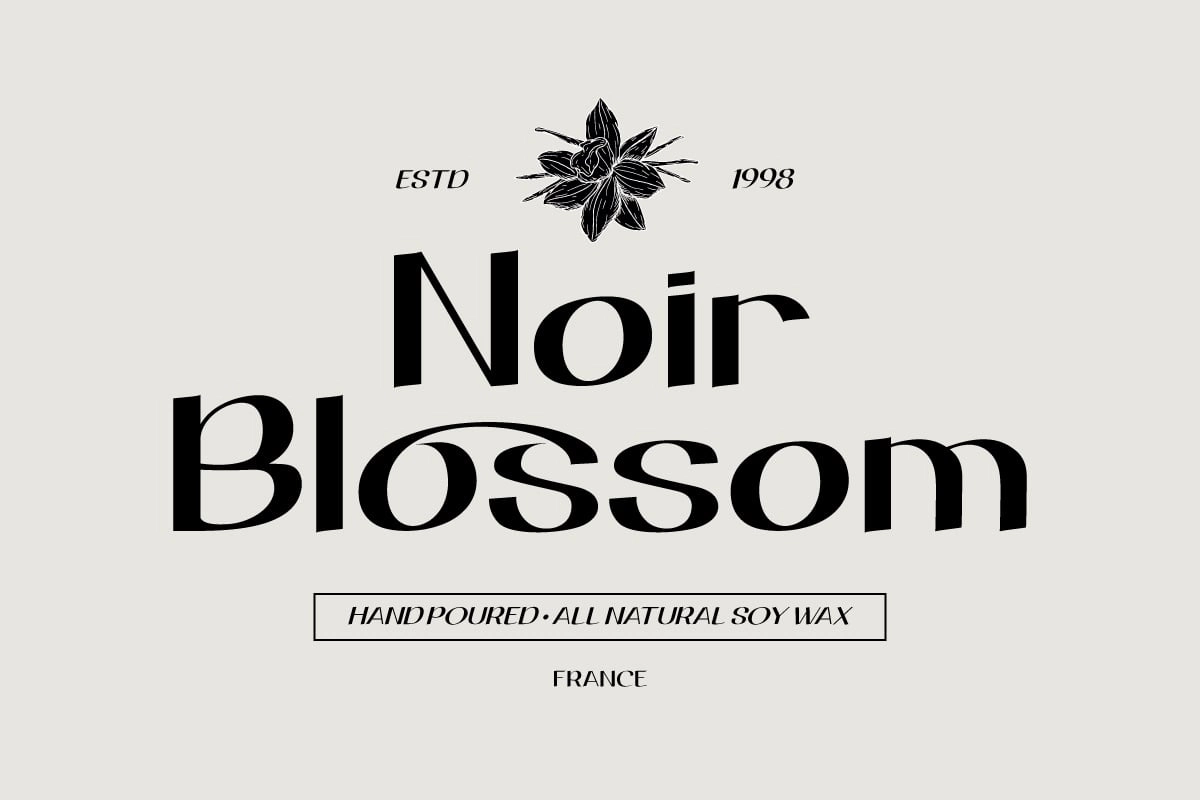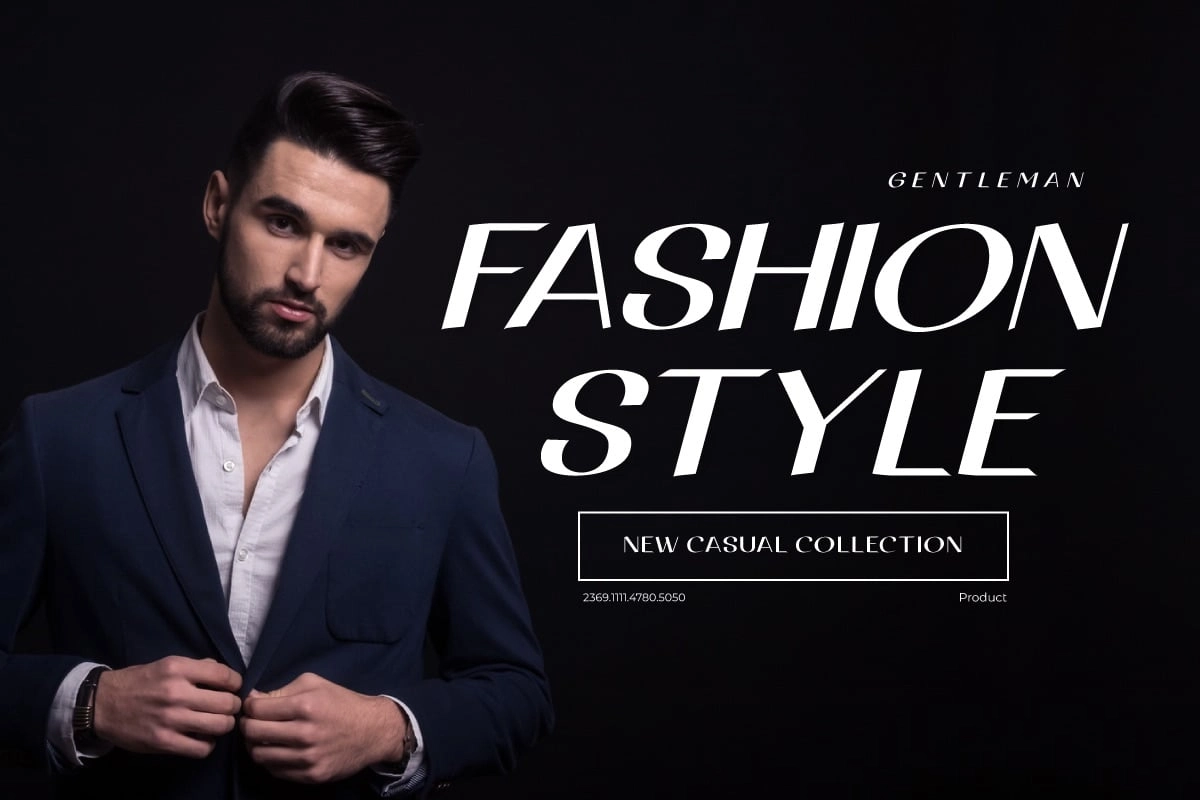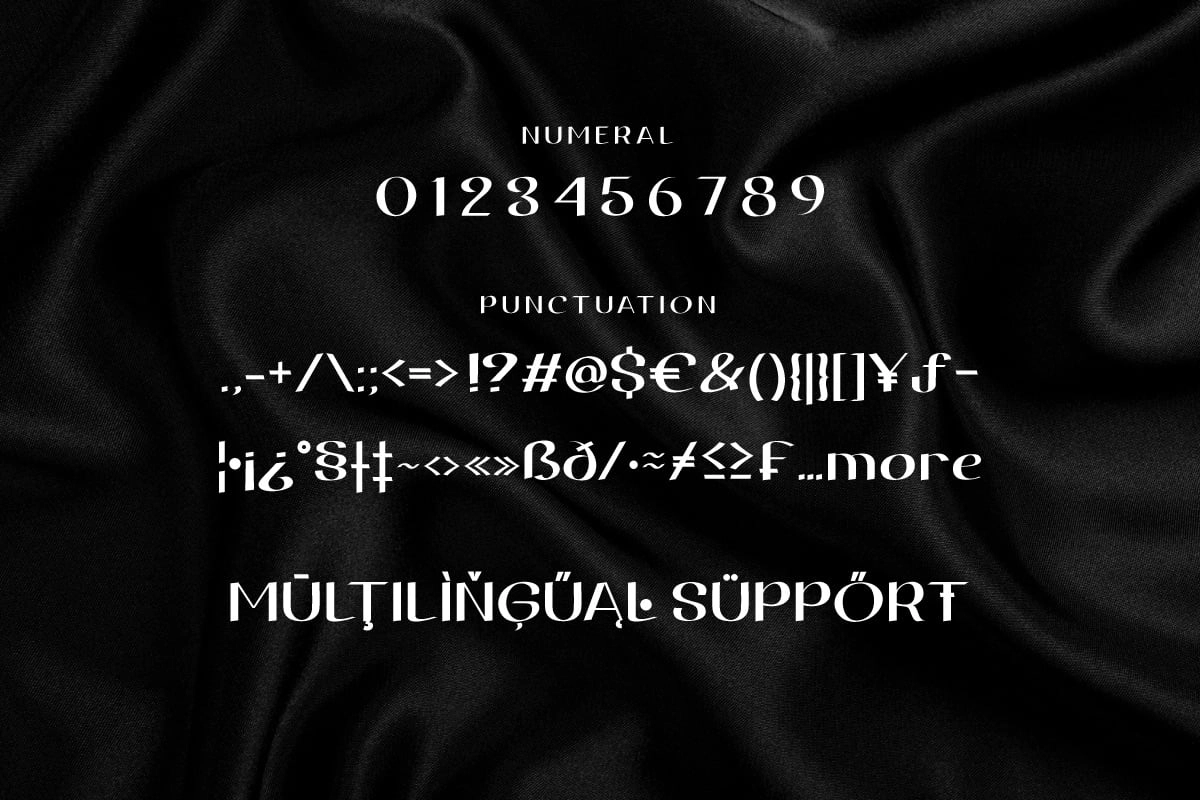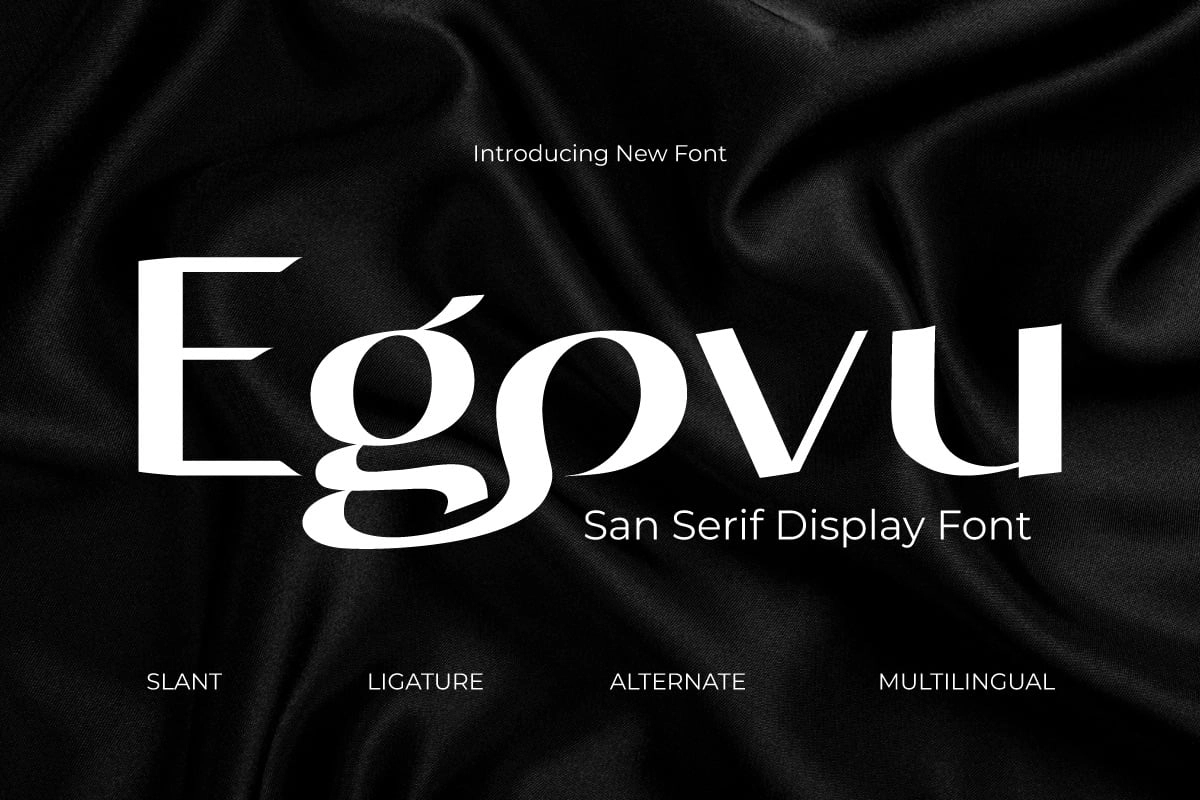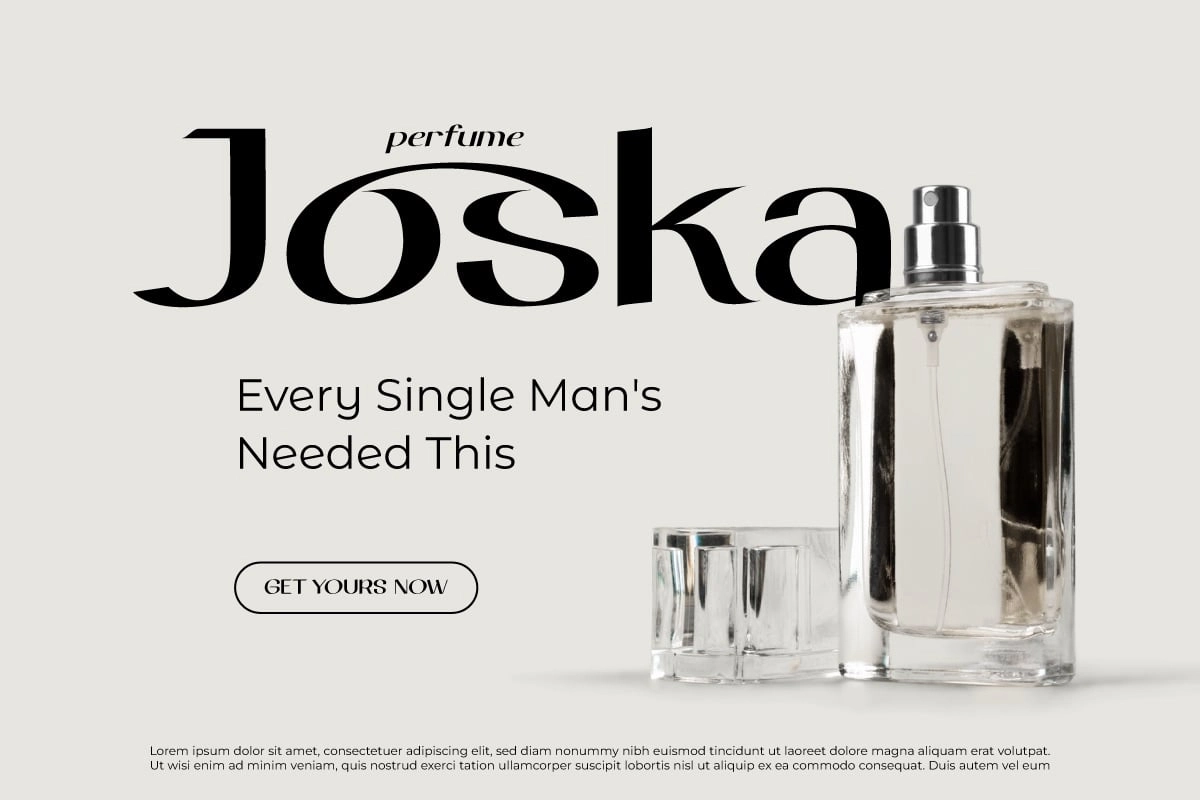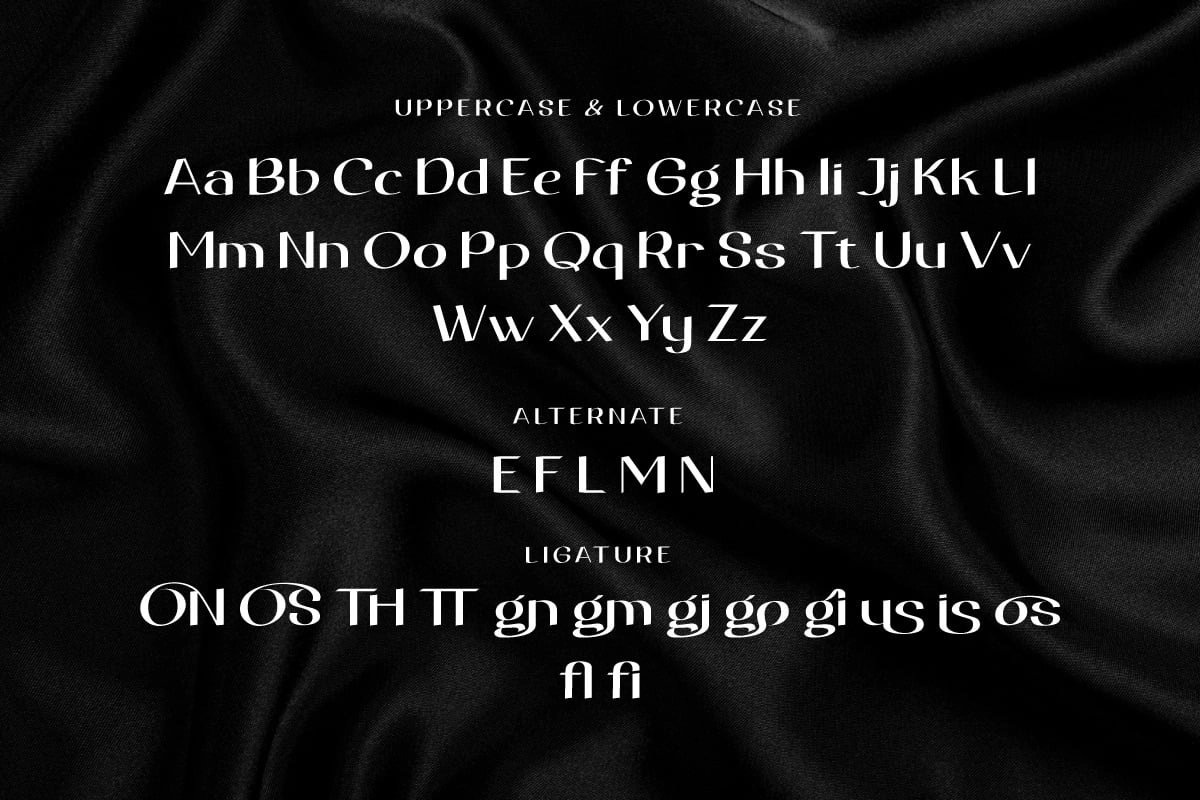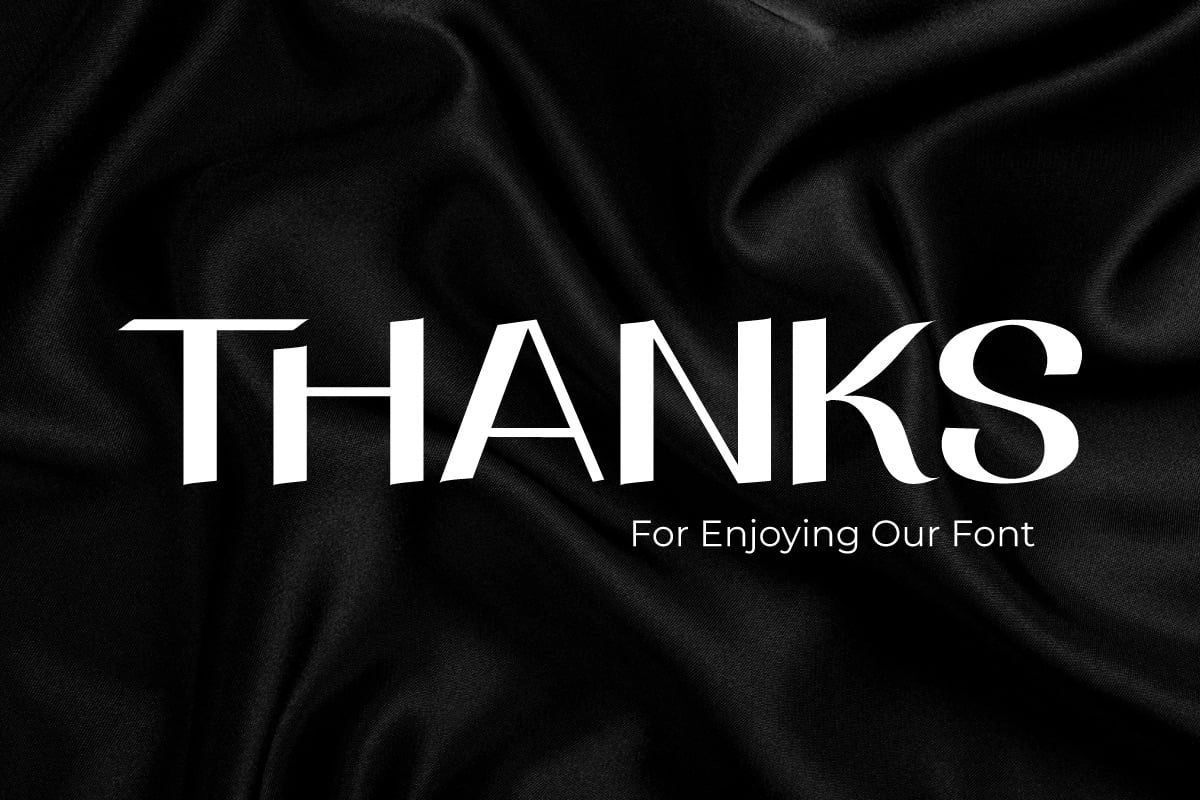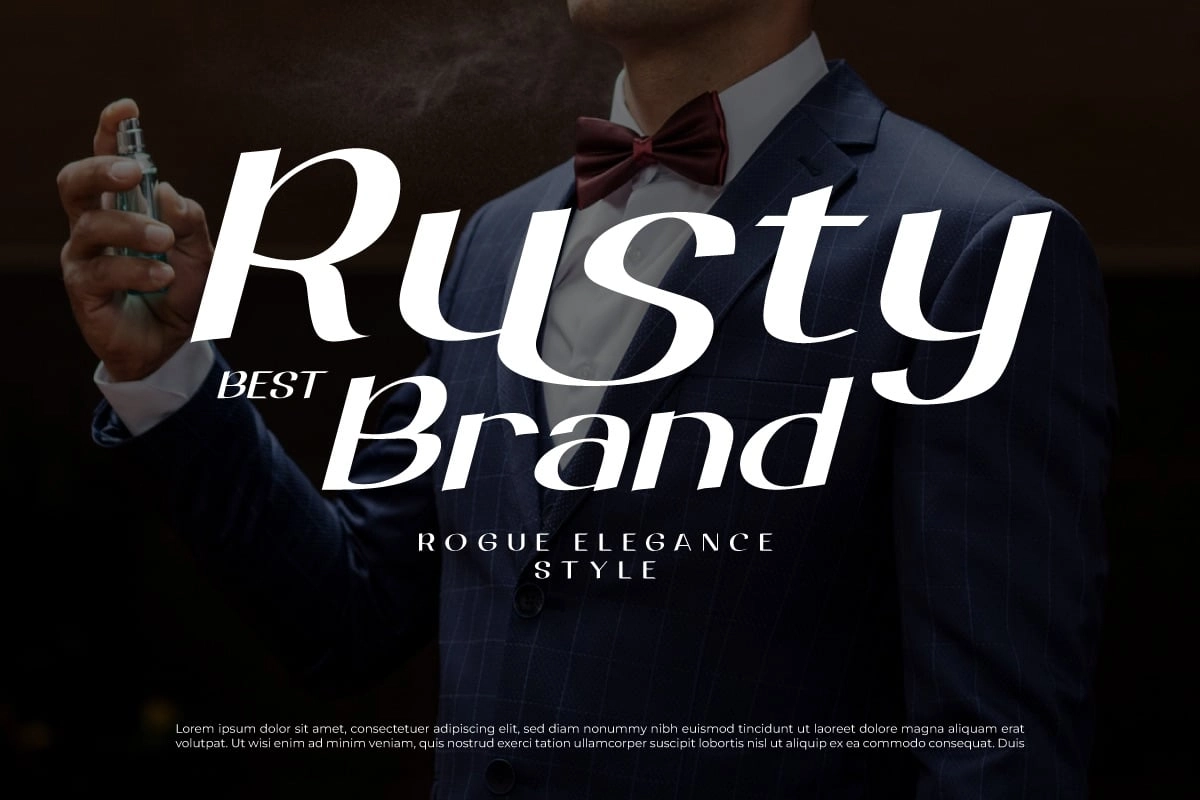
Egovu Font – Bold Sans-Serif Display Font with Ligatures & Alternates
Egovu font – Bold Sans-Serif Display Font
Welcome to the distinctive world of typography! Egovu is a genuinely unique sans-serif display font, crafted for designers who want a bold and distinctive style across a wide range of visual design projects.
What makes Egovu so special? It’s packed with incredible features. With its selection of ligatures and stylistic alternates, Egovu lets you get as creative as you like — simply swap letter combinations to give every project a personalized, one-of-a-kind touch.
Since connecting with a global audience matters, Egovu also supports multiple languages, ensuring your message comes through clearly and effectively for people all around the world.
Key Features:
• Bold, distinctive sans-serif display style
• Ligatures for creative letter combinations
• Stylistic alternates for a personalized touch
• Multilingual language support
• Versatile for logos, branding, posters & more
Perfect For:
• Logo & brand identity design
• Posters & editorial layouts
• Packaging design
• Social media graphics
• Headlines & display text